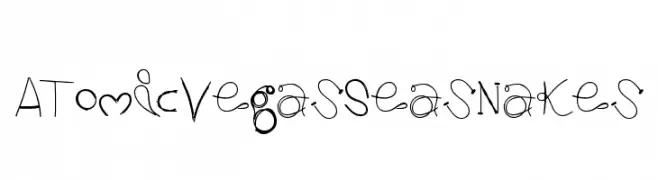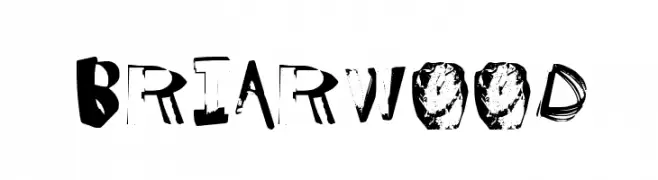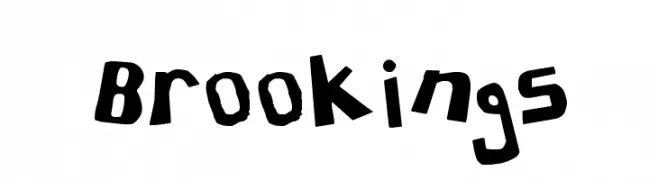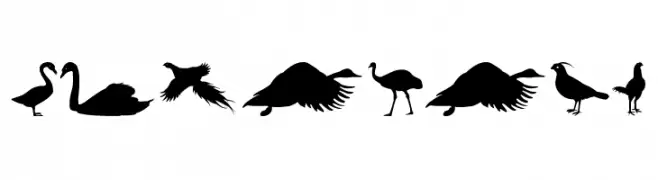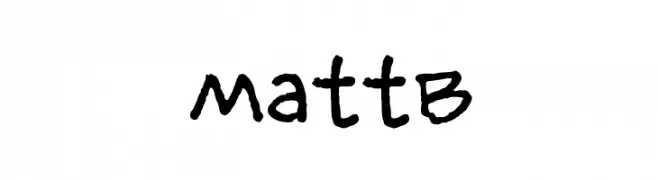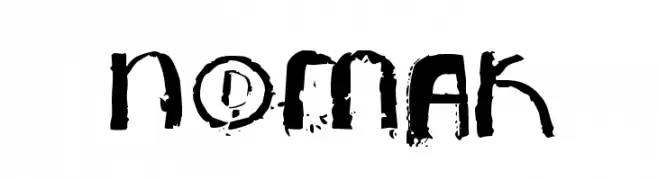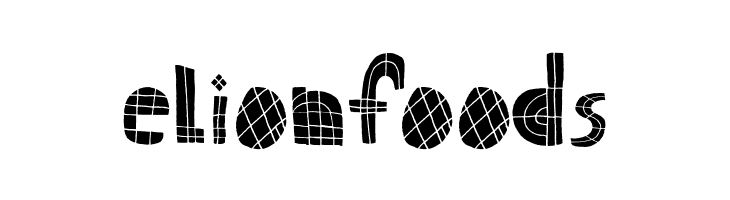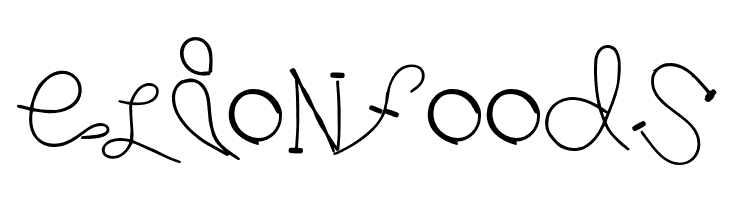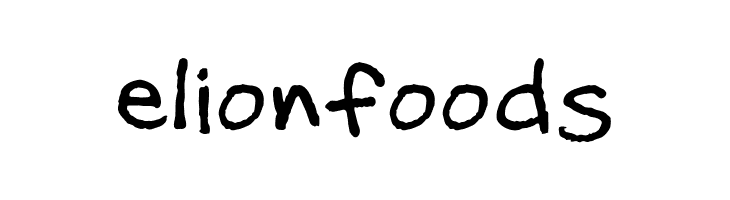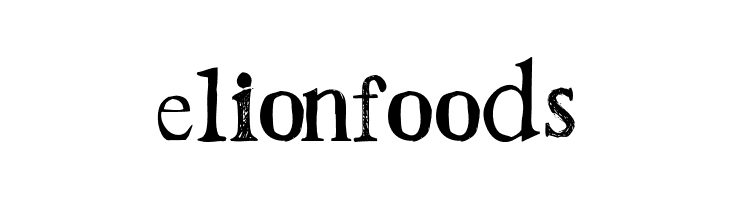
A bold, distressed font with a grunge, vintage style.
A playful, hand-drawn font with irregular, bold characters.
A bold, playful font with a tartan pattern and geometric shapes.
A decorative icon font of bird silhouettes and related imagery.
A whimsical, hand-drawn font with playful loops and swirls.
A playful, handwritten font with bold strokes and a casual style.
A distressed serif font with a vintage, textured style.
A bold, decorative font with sharp edges and a vintage, three-dimensional shadow effect.
A bold, distressed font with a rugged, handmade appearance.
An ornate, vintage-style font with intricate flourishes and bold, decorative elements.